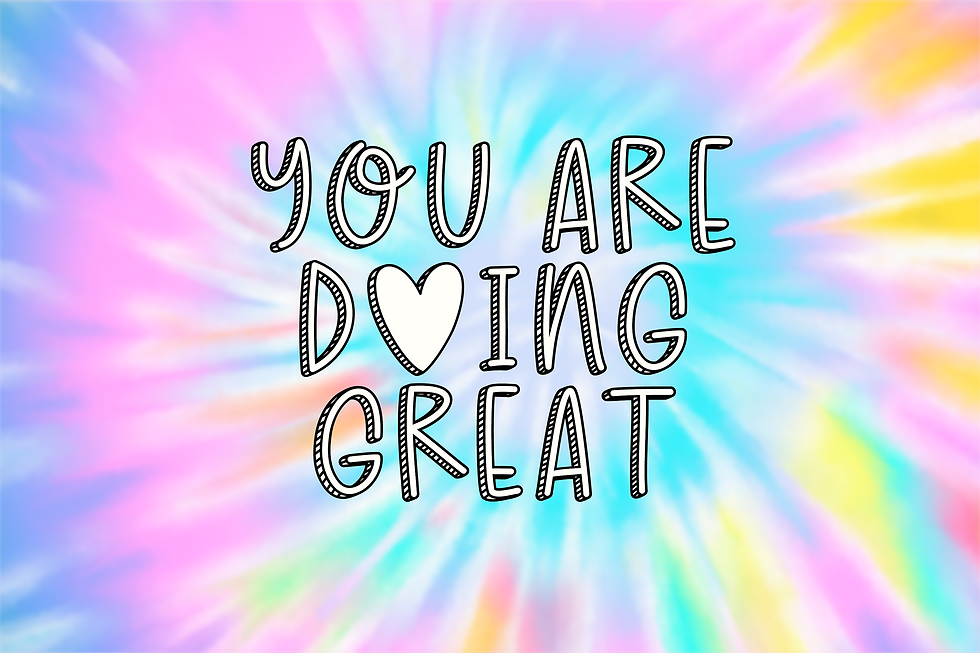
ROCKSTAR
ROCKSTAR is a fun and playful handmade font family
This font is perfect for creating unique prints and quotes, social media, products, and much more in an easy way, just by mixing the uppercase with the lowercase o and s characters.
⋒ Most accent characters included
Mix & match the uppercase with the “o” and “s” lowercase characters to get a unique result in your designs. Also you can use the “bullet” symbol as a substitute for the letter “o”
• Lowercase o – Full heart
• Lowercase s – Lightning
• Bullet symbol • - Empty heart